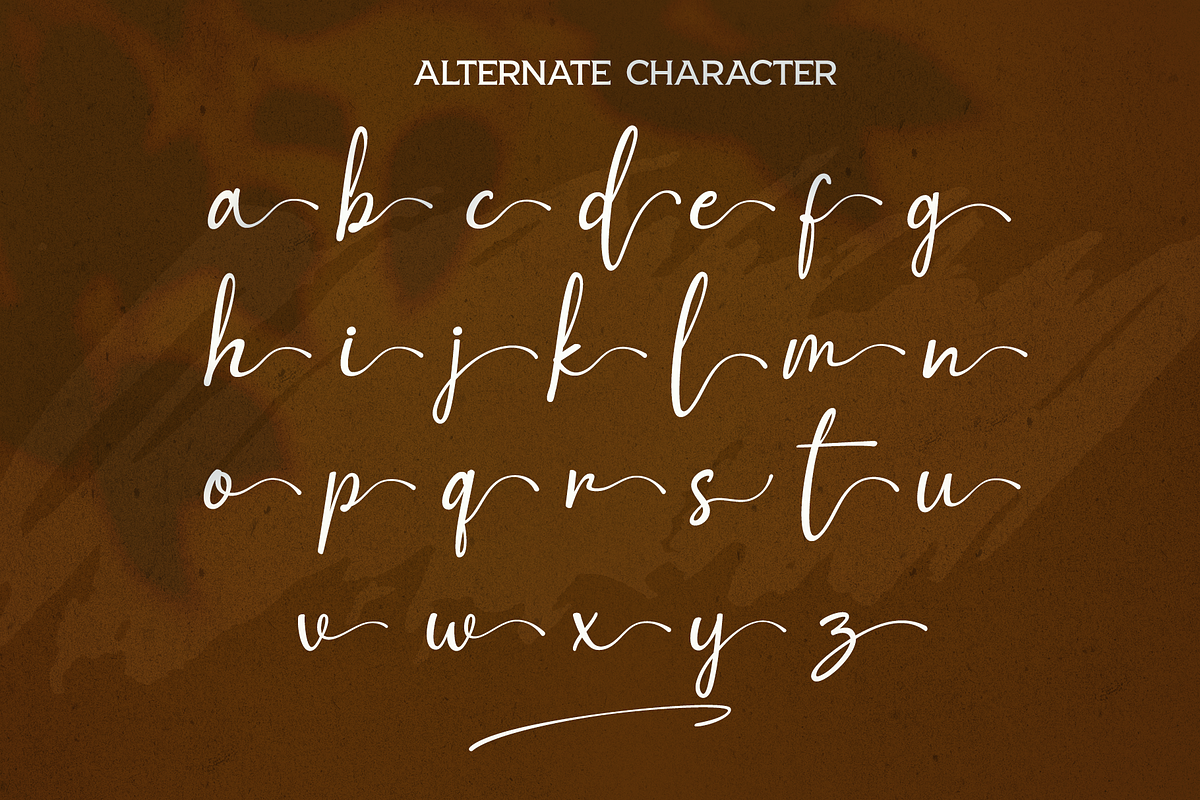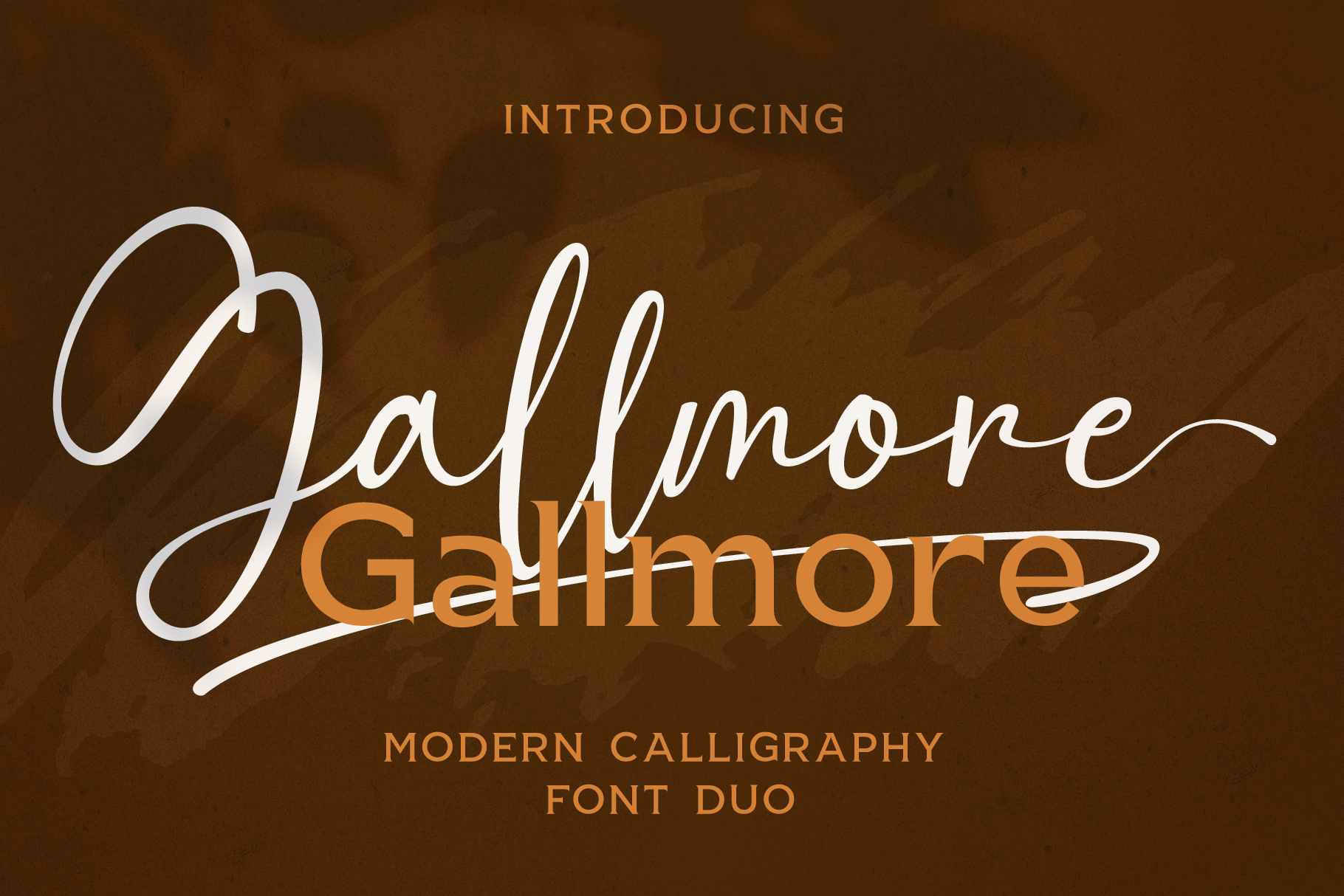
Gallmore // Chic Font Duo
Introducing, Gallmore is Font duo (Signature style and Slab Serif) with amazing hand lettering look attractive and natural! Every single letters have been carefully crafted to make your text looks beautiful. This font includes over 227 glyphs, including 30 alternate characters with swashes. It has over 60 extended Latin characters for language support. This font is suitable for invitation, branding, advertising, poster design etc, and also this font is PUA encoded so all characters are accessible via Character Map, Font Book, or the font management program of your choice.